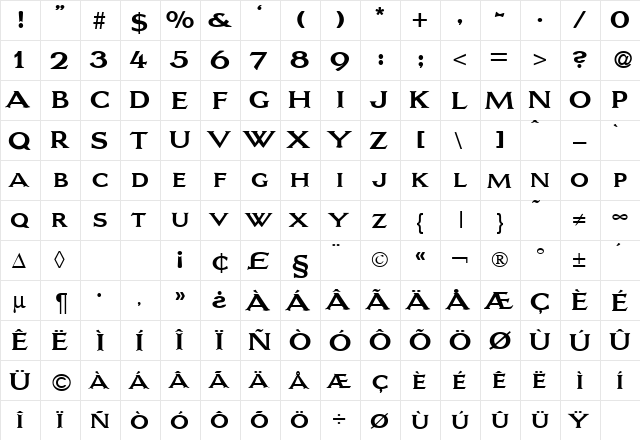
Lars Bold Font Preview
Lars Bold
Lars Bold Font Details
Design Context for Lars Typeface
Lars is a composed and adaptable typeface that performs quietly and consistently across a wide range of design contexts. The heavy weight commands attention and anchors typographic hierarchies.